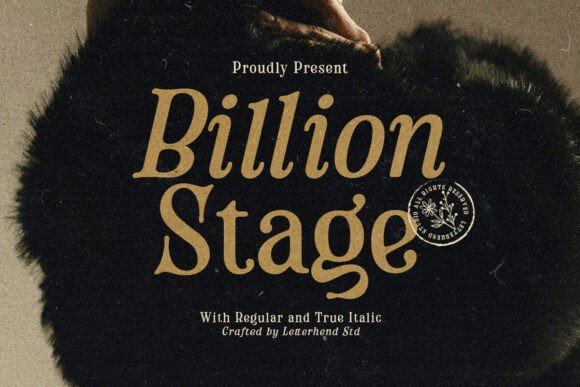
Billion Stage Font: Elevate Your Design with Timeless Elegance
In the world of typography, few fonts manage to strike a balance between vintage charm and modern sophistication. Billion Stage, a bold and elegant serif typeface, is one such exceptional design that brings a touch of classic luxury to any project. With its refined letterforms, smooth curves, and stylish ligatures, Billion Stage is the perfect choice for designers looking to add a high-end, artistic aesthetic to their work.
Introducing Billion Stage
Billion Stage is more than just a font—it’s an experience. This beautifully crafted serif typeface exudes a sense of nostalgia while still feeling refreshingly modern. Its bold and elegant design makes it suitable for a wide range of applications, from branding and editorial design to logo creation, product packaging, and invitations.
One of the standout features of Billion Stage is its ability to bring a sense of sophistication and timeless appeal to any design project. The font’s refined letterforms are meticulously designed to ensure that every character, from the uppercase letters to the lowercase, punctuation, and even numbers, is a masterpiece of typographic art. The smooth curves and subtle details add a layer of elegance, making Billion Stage perfect for projects that require a touch of luxury.
Key Features of Billion Stage Font
- Refined Letterforms: Each letter in Billion Stage is carefully crafted to ensure a harmonious and balanced look. The font’s letterforms are not just aesthetically pleasing but also highly legible, making it suitable for both headings and body text.
- Smooth Curves: The curves in Billion Stage are fluid and graceful, adding to the font’s overall elegance. These smooth transitions between strokes give the font a luxurious feel that is hard to achieve with more basic typefaces.
- Stylish Ligatures: Ligatures are an essential part of typography, and Billion Stage includes a range of stylish ligatures that can enhance the look of your text. These ligatures add a touch of sophistication and creativity to your designs.
- True Italic Style: Versatility is key in any font, and Billion Stage offers both regular and true italic styles. This allows designers to create a range of effects, from subtle text variations to more dramatic emphasis.
Perfect for a Variety of Design Projects
Billion Stage’s versatility makes it suitable for a wide range of design applications. Here are some of the ways you can use this elegant font:
- Branding: Create a lasting impression with a font that exudes professionalism and elegance. Billion Stage is perfect for logos, business cards, and other branding materials.
- Editorial Design: Whether you’re working on a magazine, newspaper, or blog, Billion Stage’s readability and style make it an excellent choice for headings and body text.
- Logo Creation: The bold and elegant nature of Billion Stage makes it ideal for creating memorable logos that stand out.
- Product Packaging: Add a touch of luxury to your product packaging with a font that conveys sophistication and quality.
- Invitations: Whether it’s a wedding invitation, event flyer, or corporate gala, Billion Stage’s vintage charm and modern twist make it perfect for creating elegant and stylish invitations.
Tips for Using Billion Stage Effectively
To get the most out of Billion Stage, consider the following design tips:
- Pair with Complementary Fonts: While Billion Stage is elegant on its own, pairing it with a complementary font can enhance its impact. Consider pairing it with a clean sans-serif font for contrast.
- Experiment with Ligatures: Don’t be afraid to experiment with the ligatures in Billion Stage. They can add a unique touch to your text and make it stand out.
- Use Contrast: Use the bold and italic styles of Billion Stage to create contrast in your design. This can help draw attention to key elements and improve readability.
- Consider Vintage Color Schemes: To enhance the vintage charm of Billion Stage, consider pairing it with a color scheme that complements its classic aesthetic. Earth tones, gold, and deep blues can create a luxurious and timeless look.
Why Choose Billion Stage?
In a world where fonts are plentiful, why should you choose Billion Stage for your next project? Here are a few compelling reasons:
- Timeless Appeal: Billion Stage’s classic design ensures that your work will stand the test of time. Unlike trendy fonts that may quickly become outdated, Billion Stage’s elegance and sophistication will remain relevant for years to come.
- High Versatility: With both regular and italic styles, Billion Stage offers a range of possibilities for designers. This versatility makes it suitable for a wide range of projects, from editorial design to branding.
- Attention to Detail: The meticulous attention to detail in Billion Stage sets it apart from other fonts. Each letterform, ligature, and curve is carefully crafted to ensure a seamless and luxurious design experience.
By choosing Billion Stage, you’re not just selecting a font—you’re elevating your design to new heights. Experience the timeless elegance and versatility of Billion Stage and discover how this exceptional typeface can transform your creative projects.